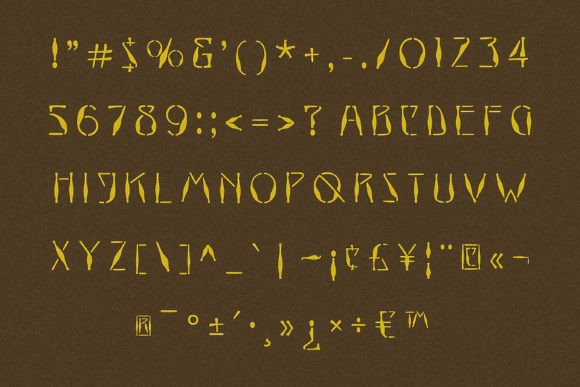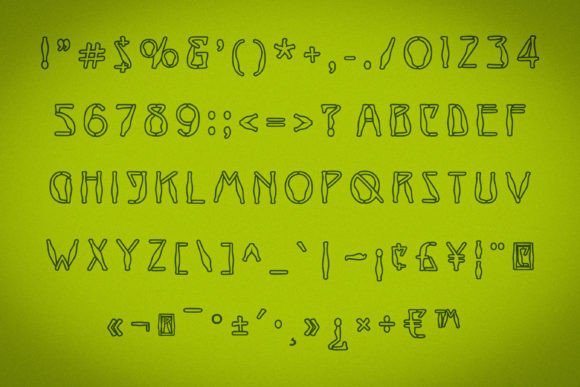
The Magical World of Bungalow Font: A Designer’s Delight
Have you ever been in the middle of a design project, and suddenly, you’re stuck on finding the perfect font? I recall a recent experience where I was working on a whimsical branding project for a children’s play area, and I just couldn’t find a font that captured the playful, magical essence I was looking for. That’s when I stumbled upon the Bungalow font, and it completely transformed my design. In this article, I’ll share my journey with Bungalow, its features, and how you can make the most of this beautiful font in your designs.
A Personal Review of Bungalow Font
What I Love About Bungalow Font
- ✨ Unique Stencil Style: Bungalow boasts a modern yet whimsical stencil style that instantly adds a touch of magic to any design.
- ✅ Versatility: Whether you’re working on a branding project, a craft design, or a fun DIY project, Bungalow fits right in.
- 💫 Readability: Despite its stylized nature, Bungalow remains highly readable, making it perfect for headlines and short texts.
- 🎨 OpenType Features: Bungalow comes with a range of OpenType features, including glyphs and stylistic alternates, which give you plenty of creative freedom.
While Bungalow is an amazing font, there are a few things to keep in mind:
- 🤔 Limited Use in Long Texts: Due to its stylized nature, Bungalow might not be the best choice for long paragraphs of text. It’s ideal for headlines, titles, and short messages.
The Story Behind Bungalow Font
Bungalow was designed with the intention of bringing a touch of whimsy and playfulness to the world of typography. Inspired by the charming, cozy bungalows that dot landscapes around the world, the designer aimed to capture the essence of a simpler, more magical time. The result is a font that’s both modern and nostalgic, perfect for designers looking to add a bit of personality to their work.
Q: What type of projects is Bungalow best suited for?
Bungalow is versatile and can be used in a variety of projects, including branding, crafts, DIY projects, and more. It’s particularly great for designs that require a playful, whimsical touch.
Q: Does Bungalow support OpenType features?
Yes, Bungalow comes with a range of OpenType features, including glyphs and stylistic alternates, which can be accessed in compatible design software.
Q: Is Bungalow suitable for long texts?
While Bungalow is highly readable, its stylized nature makes it more suitable for headlines, titles, and short texts rather than long paragraphs.